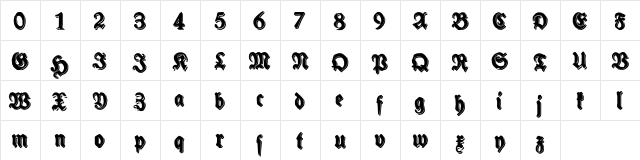
Schneidler Halb Fette Shadow Regular
| Foundry | Paulo W, Intellecta Design |
Design Context for Schneidler Halb Fette Shadow Typeface
Schneidler Halb Fette Shadow is built around its visual character rather than neutral utility — its distinctive forms are designed to make an impression at display sizes.
Font Pairing: Pair with a clean neutral sans-serif for body copy to let Schneidler Halb Fette Shadow's character lead without overwhelming the composition.
Pro Tip: Treat Schneidler Halb Fette Shadow as the centrepiece of your typographic hierarchy. One strong heading set in a decorative face can carry an entire layout.